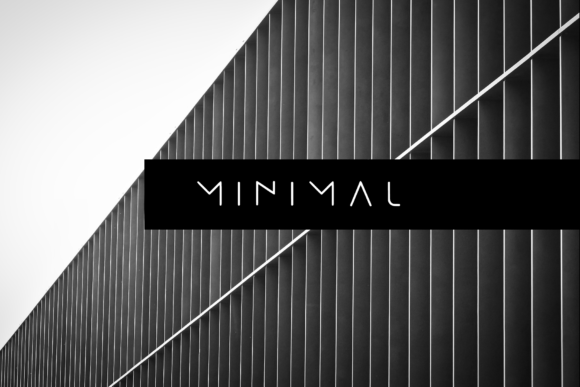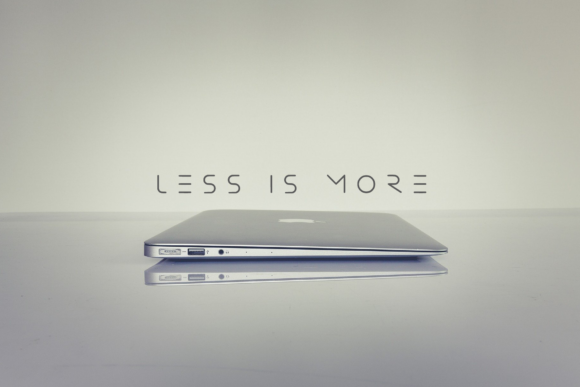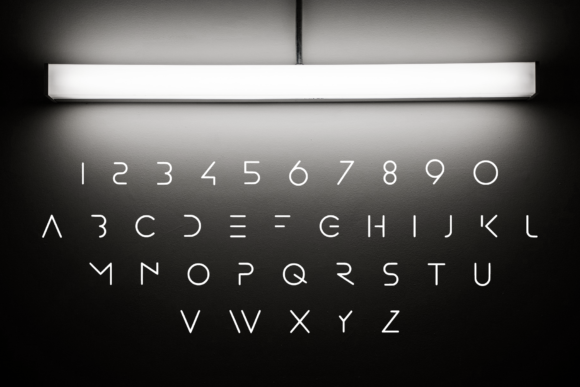
HomeSans Serif FontsMinimal Font Sans Serif Fonts Minimal Font FacebookXPinterestWhatsApp Minimal Font 1 of 3 About Minimal Font Minimal is simplistic, yet elegant sans serif with a futuristic feel. Get inspired by its futuristic feel. DOWNLOAD NOW People also explored Relaxme Font Holla Sunday Font Michelia Font Astutty Font Mister Thin Font Monolith Font A Silly Me Script Crossword Lover Font Sandwich Hestorend Font 349 0 TagsMinimalMinimal Font Previous articleRumput FontNext articleCarbon Font LEAVE A REPLY Cancel reply Comment: Please enter your comment! Name:* Please enter your name here Email:* You have entered an incorrect email address! Please enter your email address here Website: Save my name, email, and website in this browser for the next time I comment. Personal Use Free Dacquoise Personal Use Free Read more about this font Engine Personal Use Free Read more about this font Doriss Girls Family Personal Use Free Read more about this font Glowing Personal Use Free Read more about this font BLOG To increase your work productivity, choose the most readable fonts. In today's fast-paced work environment, where digital communication and information consumption are integral to our daily routines, the choice of fonts can significantly impact... Elegant Wedding Invitation Fonts – Handwritten & Script Fonts Fonts That Capture the Spirit of New York City The 10 Best Handwriting Fonts to Add Personality to Your Designs